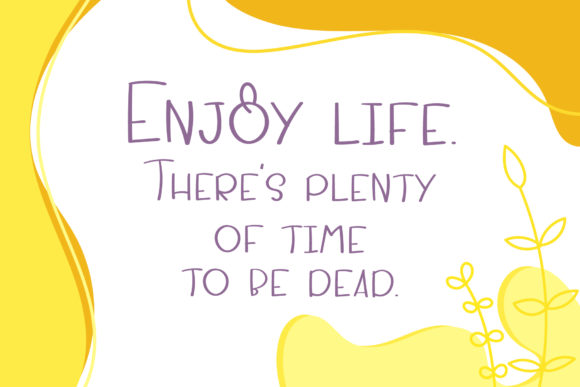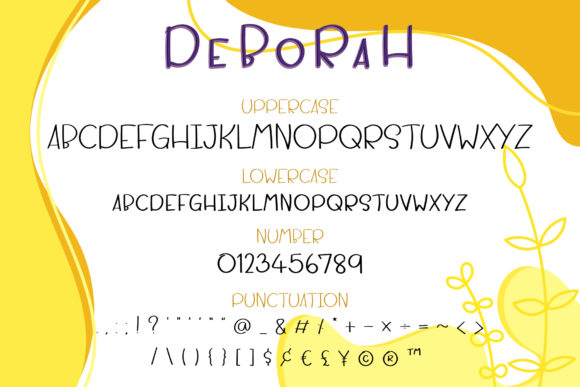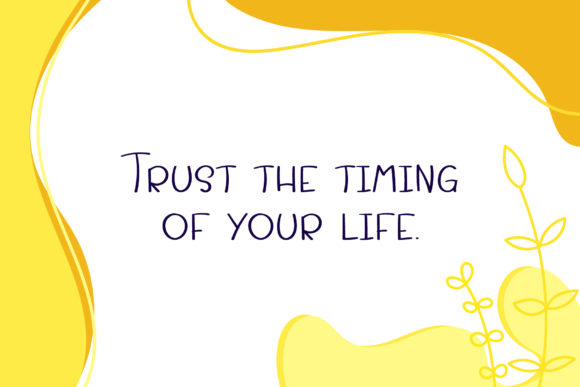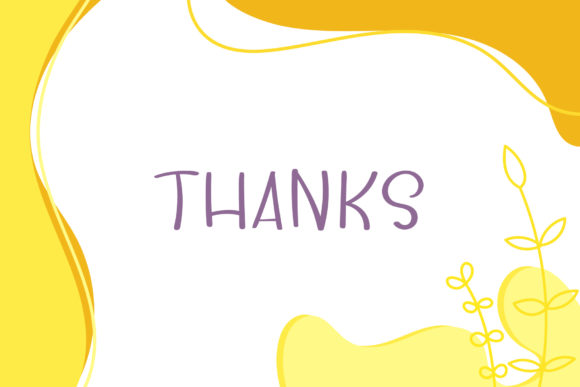
Discover the Charm of Deborah Font: Elevate Your Creative Projects
Are you on the hunt for a font that exudes warmth, friendliness, and a touch of playfulness? Look no further than the Deborah Font! This delightful handwritten font is designed to bring a smile to your face and a personal touch to your creative endeavors. Whether you’re a designer, crafter, or social media enthusiast, Deborah Font is sure to become your new go-to companion.
The Essence of Deborah Font
Deborah Font is a cute and casual handwritten font that embodies an incredibly friendly feel. Its unique charm lies in its ability to strike the perfect balance between being approachable and stylish. This font is not just a collection of letters; it’s an expression of personality and warmth. With Deborah Font, you can add a personal touch to your projects, making them stand out in a crowd.
Perfect for Instagram and Social Media
In the realm of social media, particularly on platforms like Instagram, standing out is key. Deborah Font offers a fresh and engaging way to communicate with your audience. Whether you’re crafting captions, creating stories, or designing posts, this font adds a layer of warmth and personality that resonates with viewers. Say goodbye to generic, bland text and hello to a vibrant, engaging aesthetic that captures attention and fosters connection.
Elevate Your DIY Projects with Calligraphy Scripts
For crafters and DIY enthusiasts, Deborah Font opens up a world of creative possibilities. This font can be used to add beautiful calligraphy scripts to your projects, turning simple crafts into stunning pieces of art. Imagine adorning your journals, planners, and homemade cards with elegant, yet casual, script that speaks to the heart. Deborah Font is not just a font; it’s a tool that transforms your creative ideas into tangible expressions of art.
Why Choose Deborah Font?
- Unique and Personal Touch: Deborah Font brings a unique, handwritten feel to your projects, making them instantly more personal and engaging.
- Versatility: From digital designs to handmade crafts, Deborah Font adapts seamlessly, ensuring your projects look great in any context.
- Easy to Read and Aesthetically Pleasing: The font’s clarity and style ensure that your message is conveyed effectively without compromising on visual appeal.
- Incredibly Friendly Feel: The warmth and approachability of Deborah Font make it perfect for projects aimed at building a connection with the audience.
Deborah Font is more than just a font; it’s a creative companion designed to bring warmth, personality, and style to your projects. Whether you’re a designer looking to elevate your digital creations or a crafter aiming to add a personal touch to your handmade crafts, Deborah Font is an excellent choice. Its friendly feel, versatility, and aesthetic appeal make it a valuable asset in your creative toolkit. So, why wait? Dive into the world of Deborah Font and watch your creative ideas transform into beautiful pieces of art!